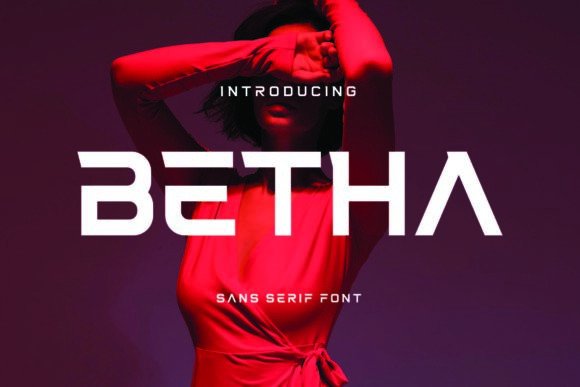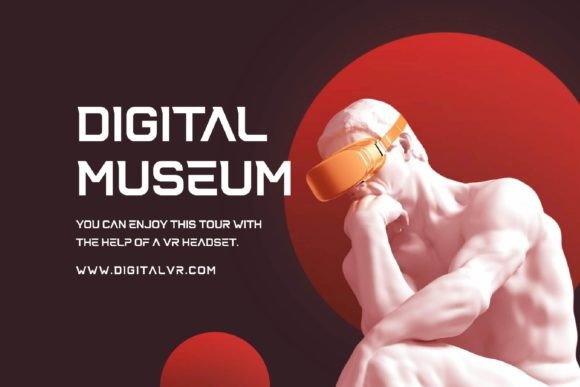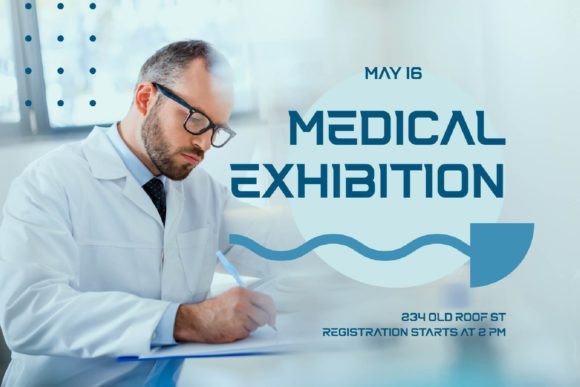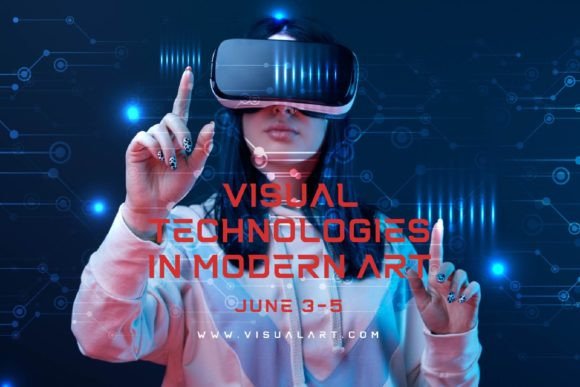
Betha Font: A Modern Minimalist Sans Serif for Logo Design & Branding
About the Betha Font
Presenting Betha Font, a unique and stylish typeface that will make your work stand out. Betha is a sans serif font, inspired by the famous minimalist logo perfect for the purposes of designing templates, brochures, videos, advertising branding, logos, invitations, layout design, elegant crafting, beauty designs and much more.
Betha Font Usage Examples